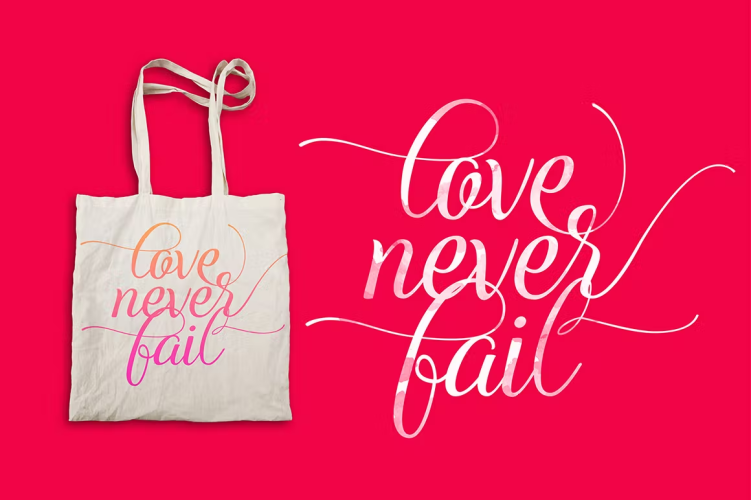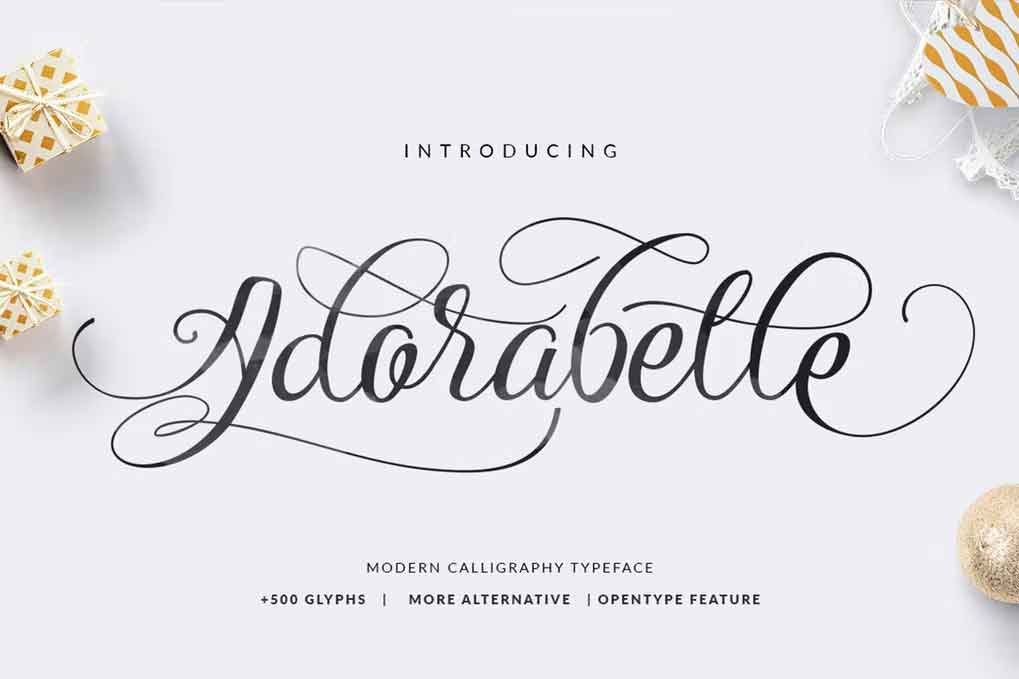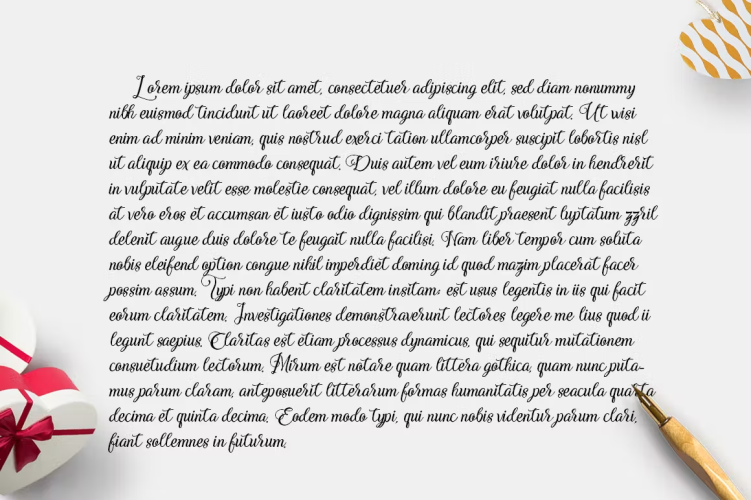
Adorabelle Elegant Wdding Font
Adorabelle Script – a new fresh & modern script with a calligraphy style, decorative characters and a dancing baseline! So beautiful on invitation like greeting cards, branding materials, business cards, quotes, posters, and more!
Where Adorabelle Elegant Wdding Font works best
Adorabelle Elegant Wdding Font brings a personal, handwritten warmth to invitations, menus and place cards.
Craft brands — coffee, cosmetics, bakery — use scripts like Adorabelle Elegant Wdding Font for signature-style logos and labels.
Pair Adorabelle Elegant Wdding Font with a plain sans for quotes, stories and Pinterest pins that feel handmade.
What is Adorabelle Elegant Wdding Font good for?
Adorabelle Elegant Wdding Font is a Script And Handwritten typeface tagged Branding, Calligraphy, Elegant, Modern. It works well for headlines, logos, posters, social media graphics and branding projects that need a distinctive script and handwritten look.